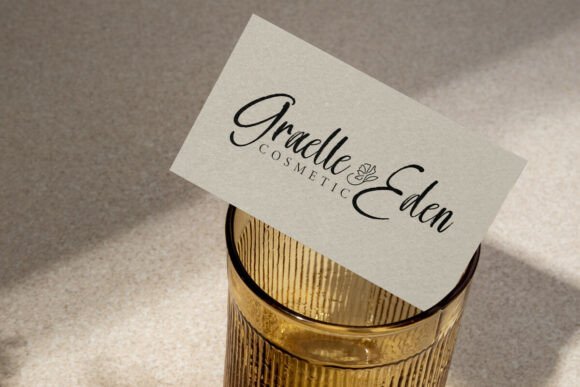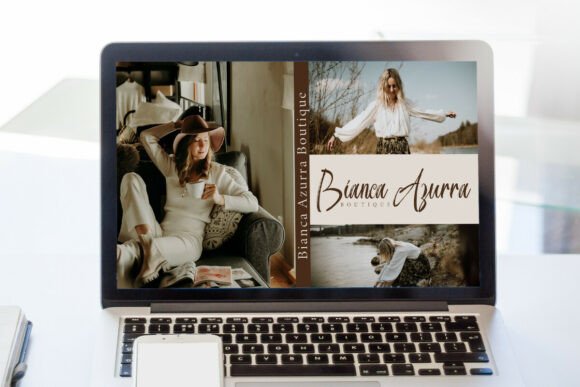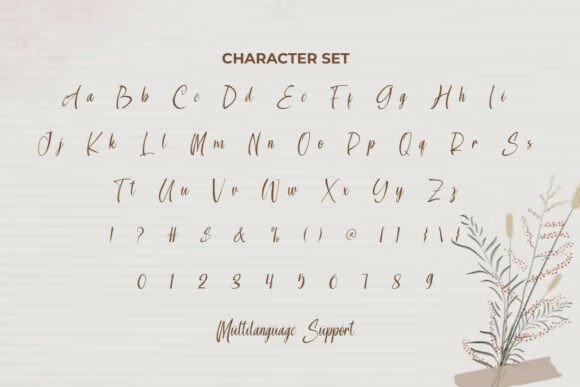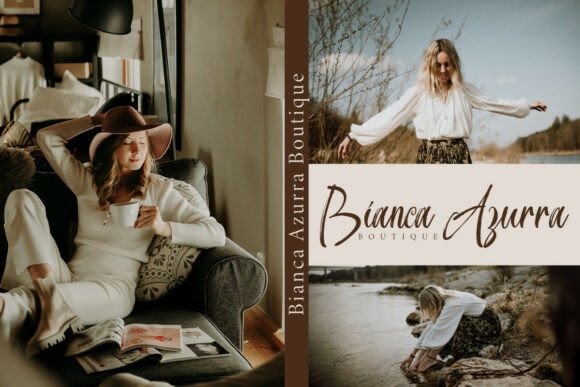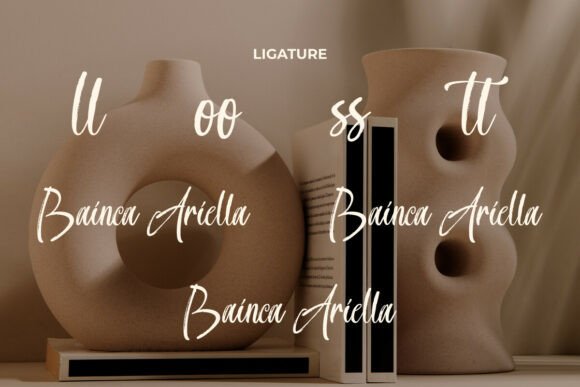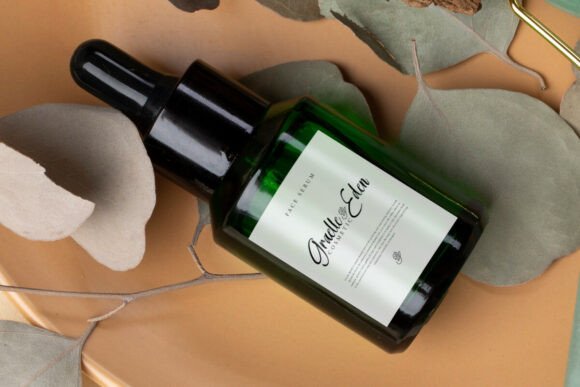
When Handwriting Meets Design: Unleashing the Power of Bainca Ariella Font
Do you remember the feeling of scribbling a heartfelt thank-you note to a loved one, the way the pen glides effortlessly across the page, leaving behind a trail of expressive strokes? That’s the magic of Bainca Ariella Font, a stunning dry brush calligraphic script font by NoahType that captures the essence of authentic, high-speed handwriting.
This beautiful font features sweeping, rough-edged strokes that give it a raw, personalized texture, perfect for designs that aim for a natural, unrefined elegance. Whether you’re crafting luxury branding, signature logos, or wedding stationery, Bainca Ariella Font is the perfect choice for designers seeking to add a touch of handcrafted, painterly feel to their projects.
With its striking presence and sophisticated flair, Bainca Ariella Font is a valuable addition to any designer’s toolkit, offering an appealing balance of casual movement and refined elegance that’s sure to leave a lasting impression.
- Font Family: Bainca Ariella Font is a unique, handwritten font family designed for various creative applications.
- Character Set: Supports a wide range of languages, including Latin-based languages and some Cyrillic and Greek scripts.
- Unique Characteristics: Bainca Ariella Font features a mix of elegant and playful elements, making it suitable for various design projects, including invitations, logos, and packaging.
Bainca Ariella Font Review
As a designer, I was excited to dive into the Bainca Ariella Font. The first thing I noticed was its elegant, handwritten feel, perfect for adding a touch of sophistication to any design. ✨ The subtle flair and fluidity of the letters make it an excellent choice for invitations, quotes, or any project where a personal touch is needed.
One of the things that works well for the Bainca Ariella Font is its versatility. It’s available in a range of weights and styles, allowing designers to experiment with different looks and feels. ✨ Additionally, the font is highly legible, making it suitable for body text as well as headings.
While the Bainca Ariella Font has many strengths, there are a few limitations to be aware of. ⚠️ For one, the font may be too ornate for some designs, potentially overwhelming the content. Additionally, the font’s fluidity can sometimes make it difficult to read at smaller sizes.
In conclusion, the Bainca Ariella Font is a beautiful, elegant choice for designers looking to add a touch of personality to their projects. While it may have some limitations, its versatility and legibility make it a valuable addition to any design toolkit.
- Use the Bainca Ariella Font for projects that require a personal, handwritten feel.
- Choose the right weight and style to balance the font’s ornate nature.
- Test the font at different sizes to ensure it remains legible.
Use Bainca Ariella Font for elegant, sophisticated designs, such as invitations, wedding stationery, or luxury branding materials. Experiment with different font sizes and styles to create visual interest. Pair Bainca Ariella Font with other elegant fonts or use it as a bold accent font.
Bainca Ariella Font is ideal for:
- Wedding stationery, invitations, and thank-you cards
- Luxury branding materials, such as business cards and brochures
- Elegant event invitations and promotional materials